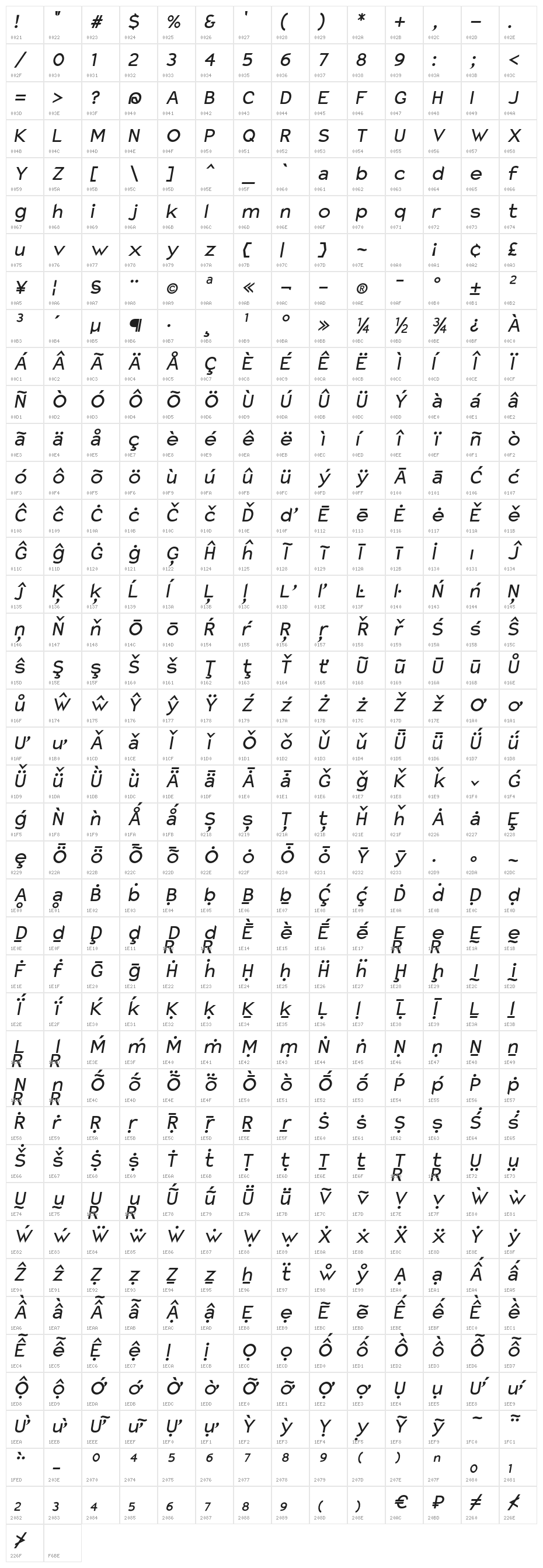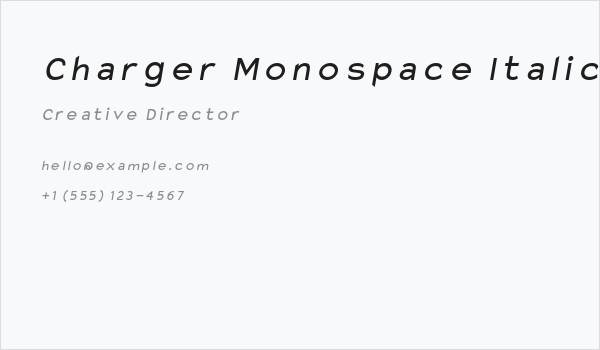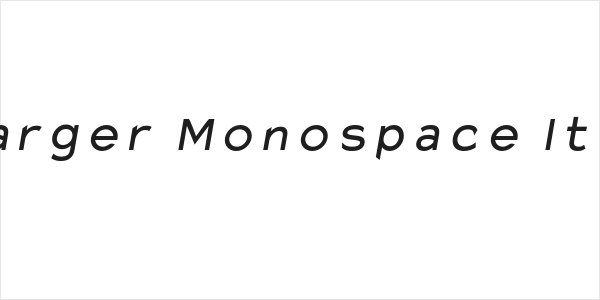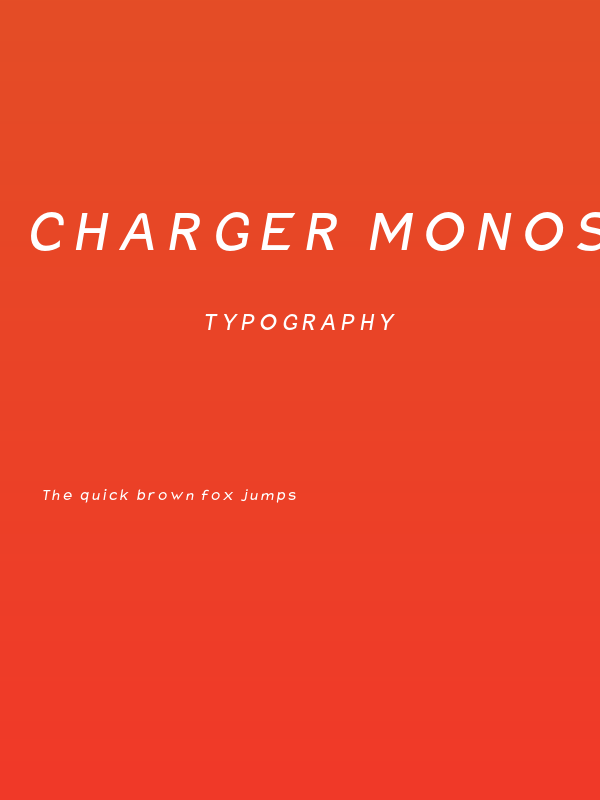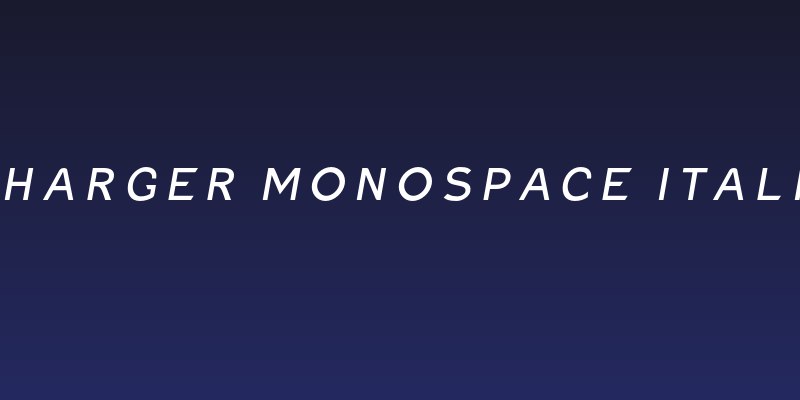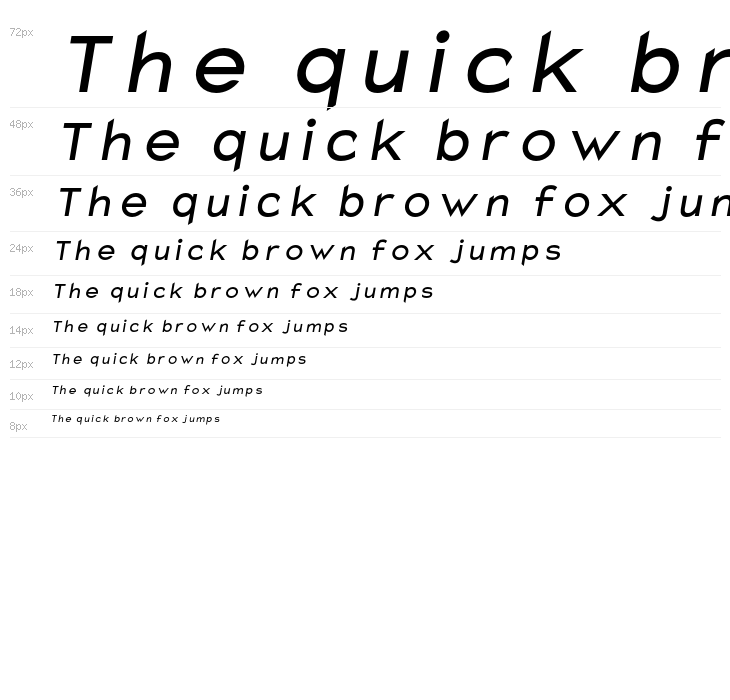
Charger Monospace Italic Font
Charger Monospace Italic Description
This font features a sleek, modern design with a monospaced structure, ensuring each character occupies the same horizontal space. The italic style adds a dynamic and forward-leaning appearance, enhancing its contemporary feel. The characters are clean and minimalistic, with smooth curves and sharp edges that provide a professional and polished look. The uniformity in character width makes it ideal for coding and technical documents, where alignment is crucial. The font maintains a consistent stroke weight, offering a balanced and harmonious visual experience.
| Use Case | Coding, Technical documents, Digital interfaces |
| Proposed Projects | Ideal for coding, technical documents, modern branding, and digital interfaces. |